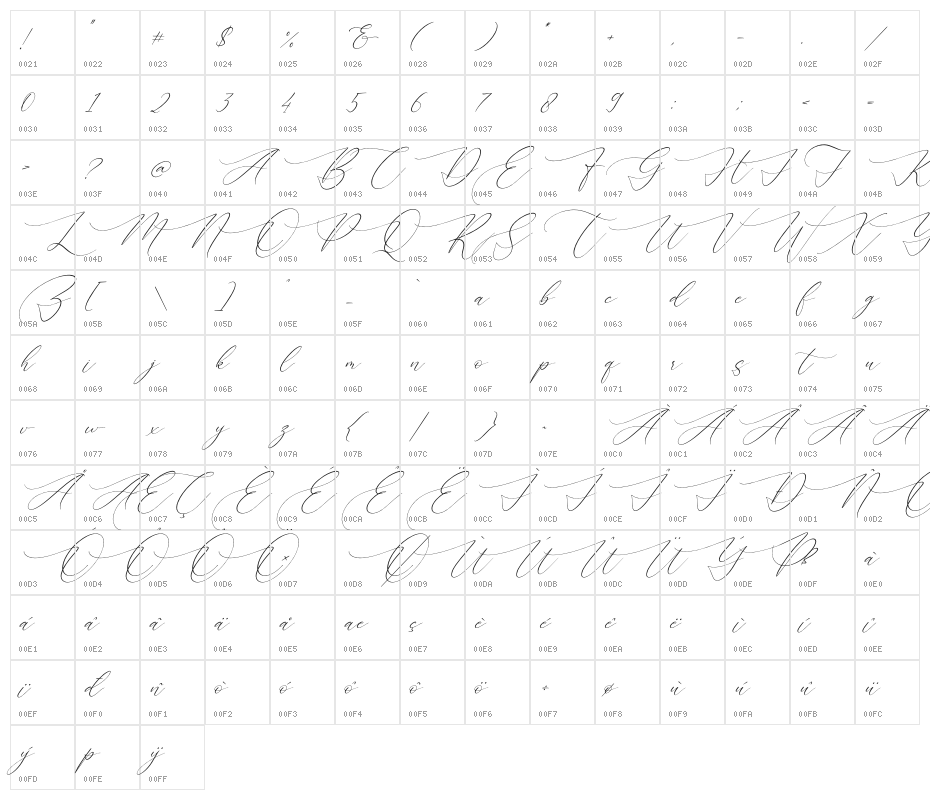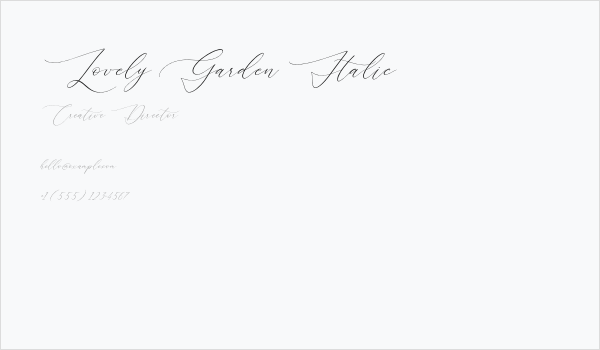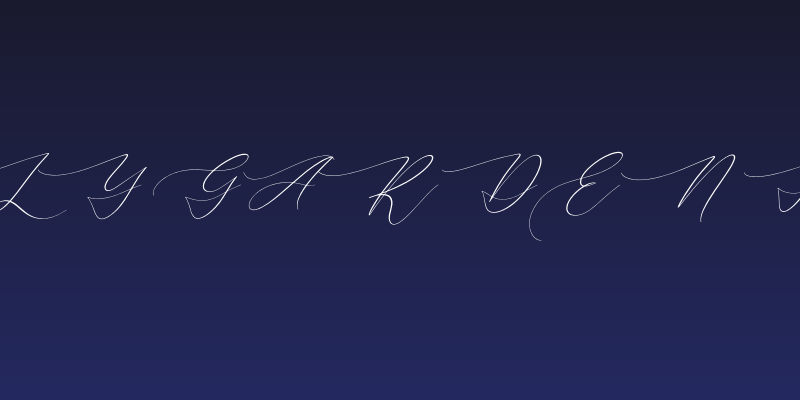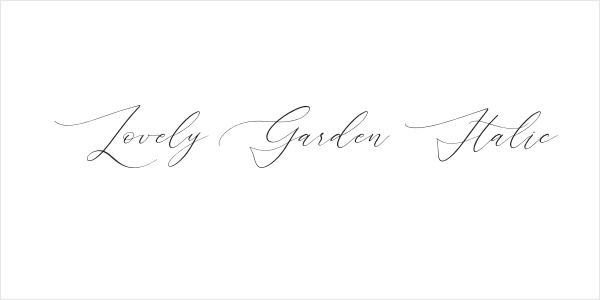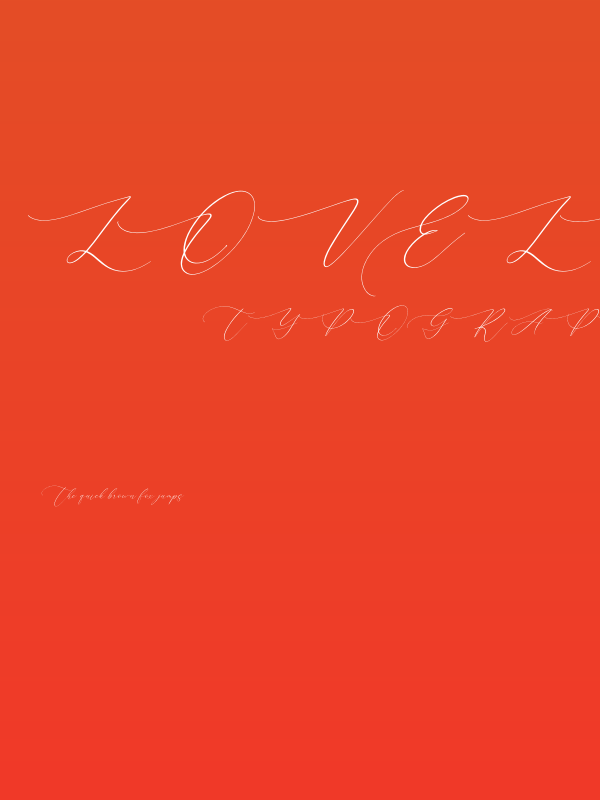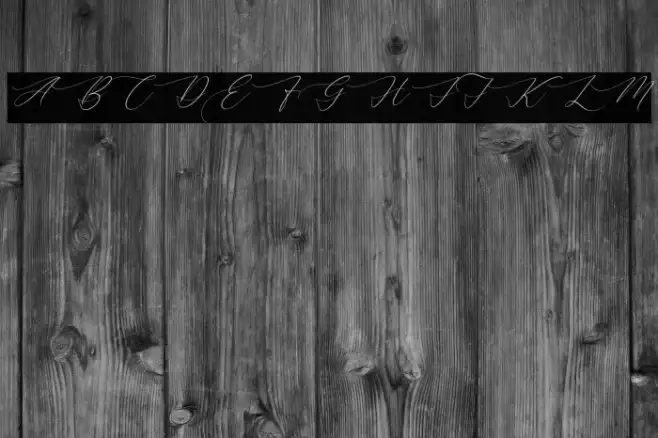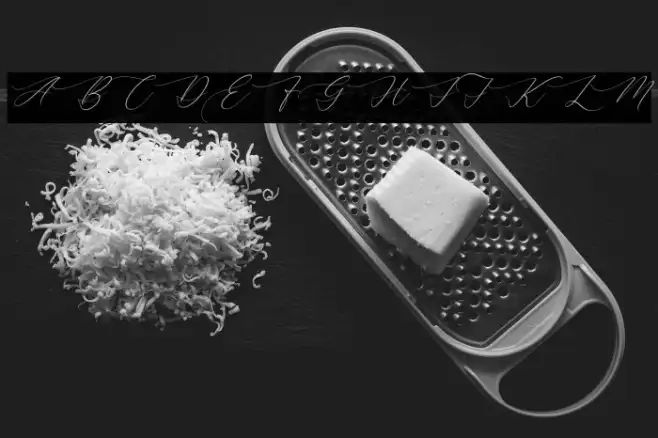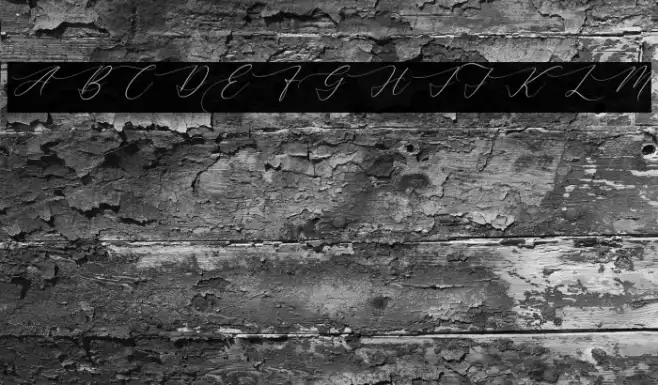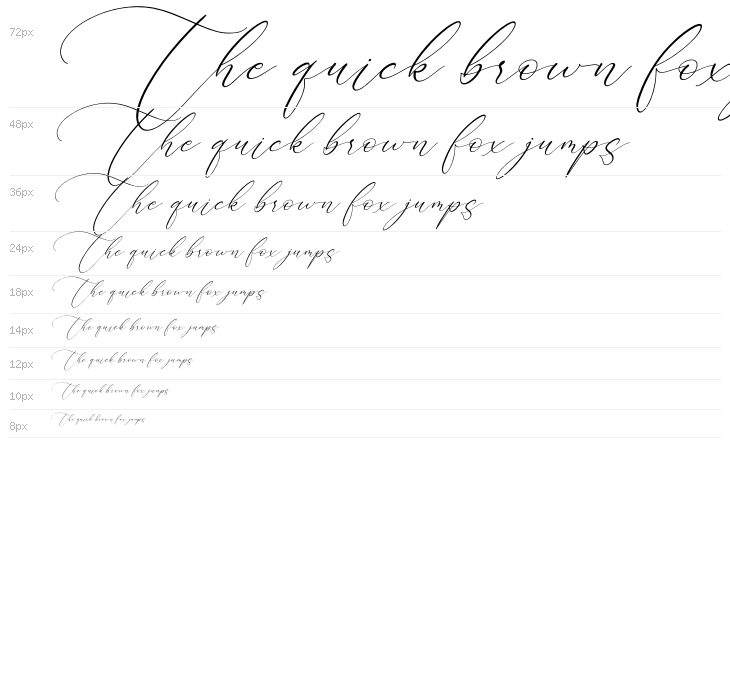
Lovely Garden Italic Font
Lovely Garden Italic Description
This elegant script font features a flowing, cursive style that exudes sophistication and grace. The characters are intricately designed with delicate, sweeping strokes that create a sense of fluidity and movement. The uppercase letters are particularly ornate, with elaborate loops and flourishes that add a touch of luxury. The lowercase letters maintain a consistent style, with smooth, connected lines that enhance readability while preserving the font's artistic flair. The numerals and special characters are crafted with the same attention to detail, ensuring a cohesive look across all elements. This font is perfect for projects that require a touch of elegance and refinement.
| Overall Style | Elegant, Decorative |
| Proposed Projects | Ideal for wedding invitations, elegant branding, luxury packaging, and decorative signage. |